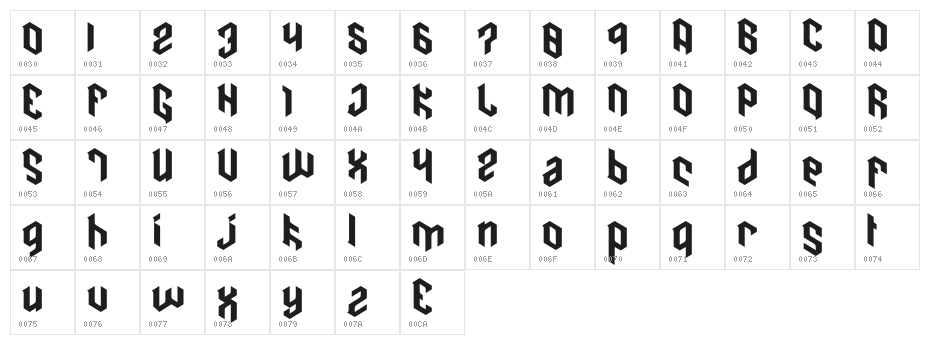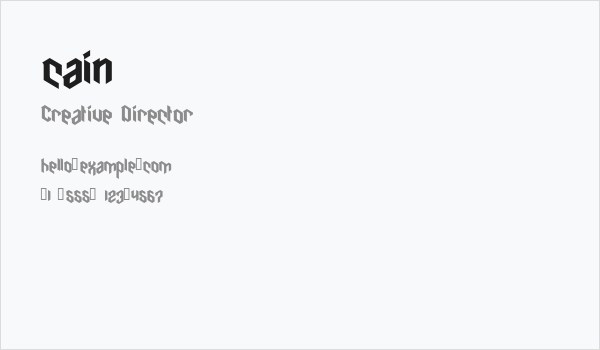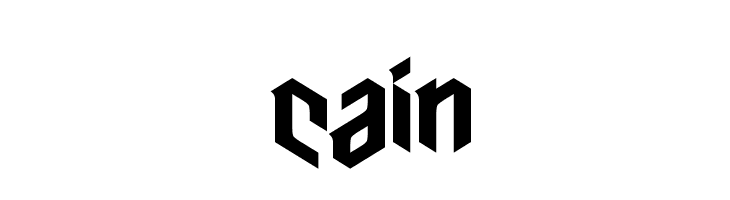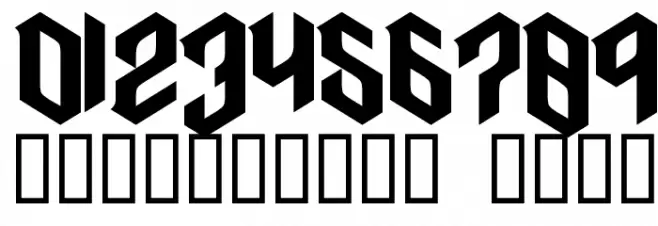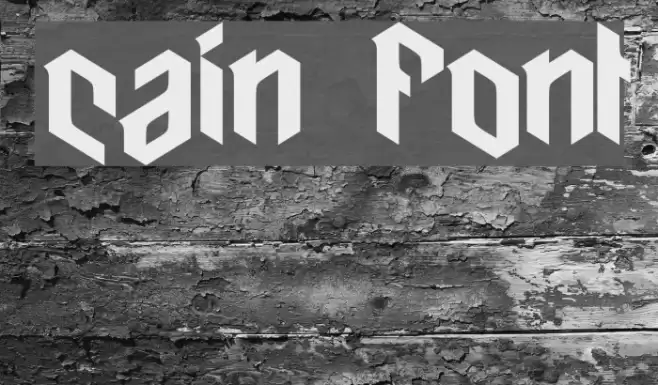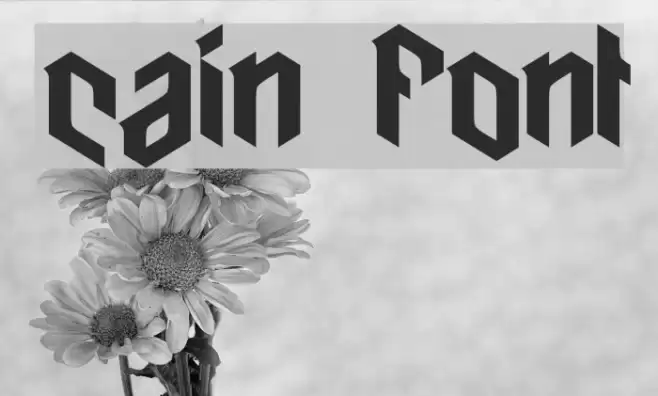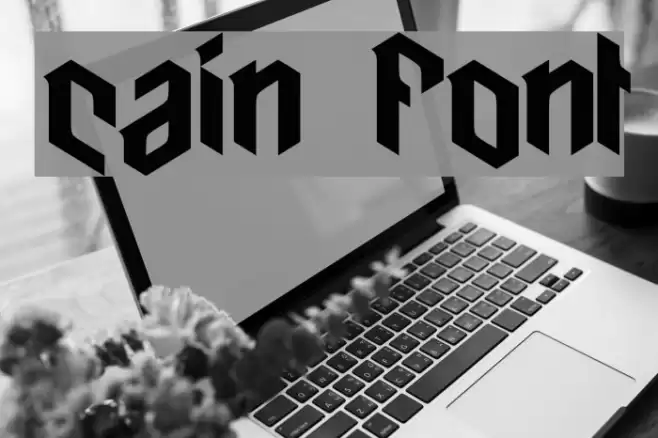
cain Font
cain Description
This font exhibits a bold, angular design with a strong geometric influence. The characters are constructed with sharp edges and a consistent thickness, creating a striking and modern appearance. The uppercase and lowercase letters maintain a cohesive style, while the numbers and special characters follow the same angular theme. The overall design is reminiscent of futuristic or sci-fi aesthetics, making it suitable for projects that require a bold and impactful visual statement.
| Proposed Projects | Ideal for sci-fi themed designs, video game titles, posters, and branding that requires a modern and edgy look. |